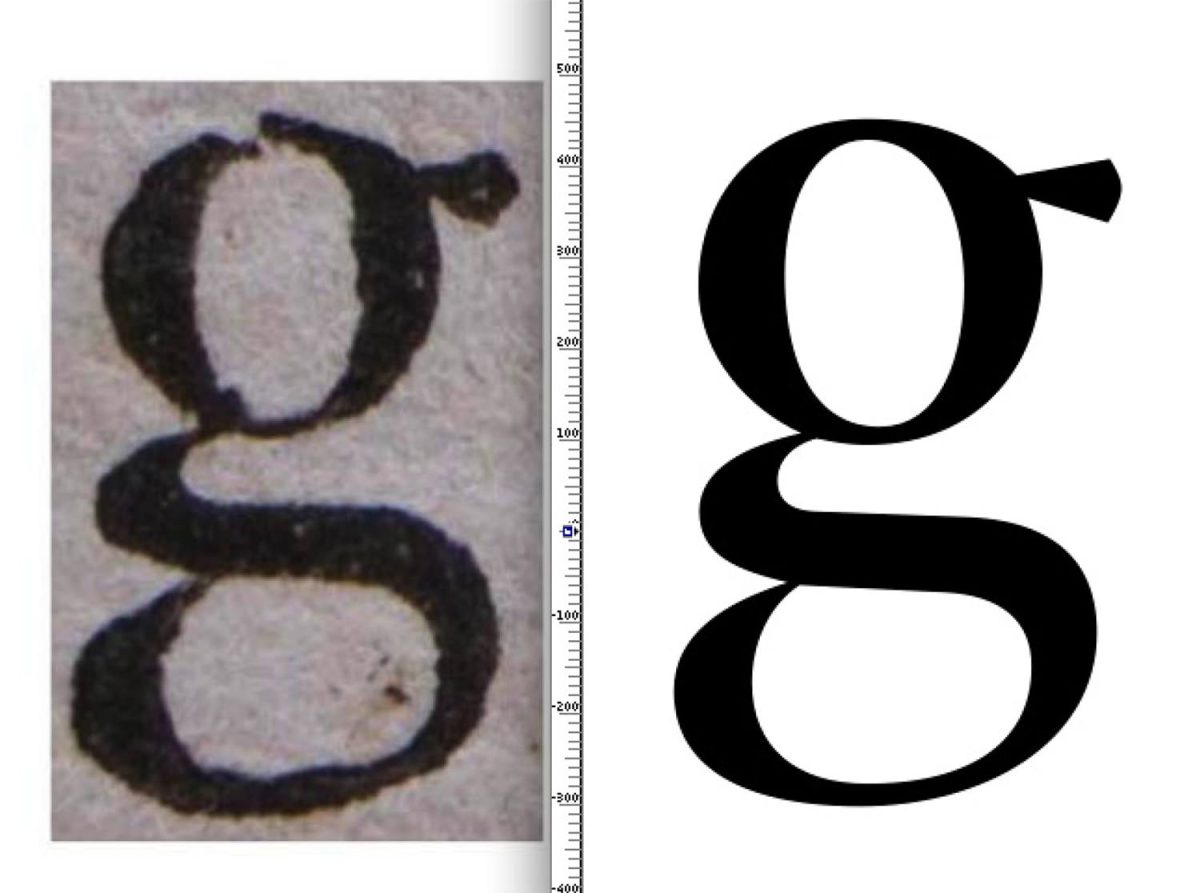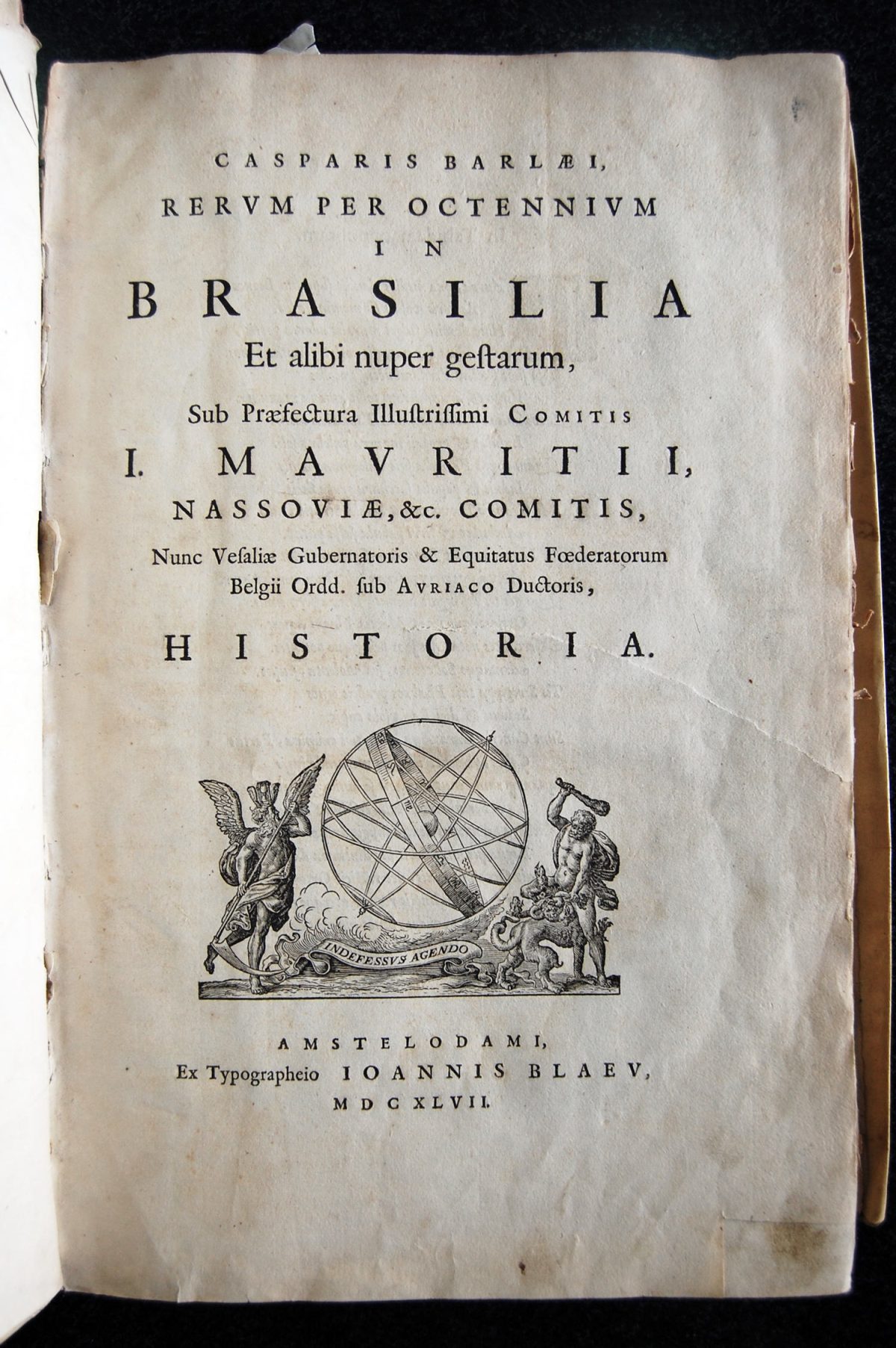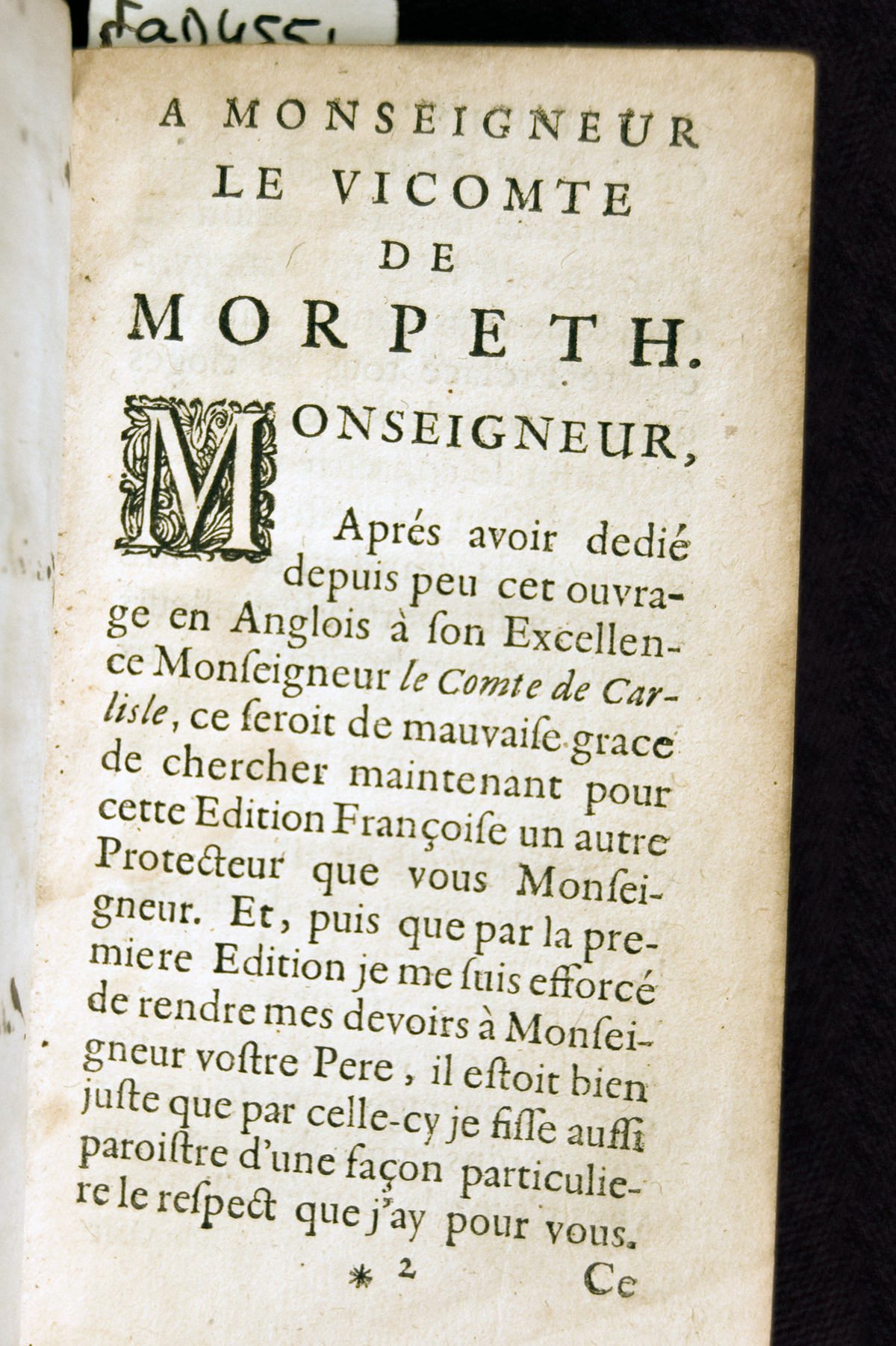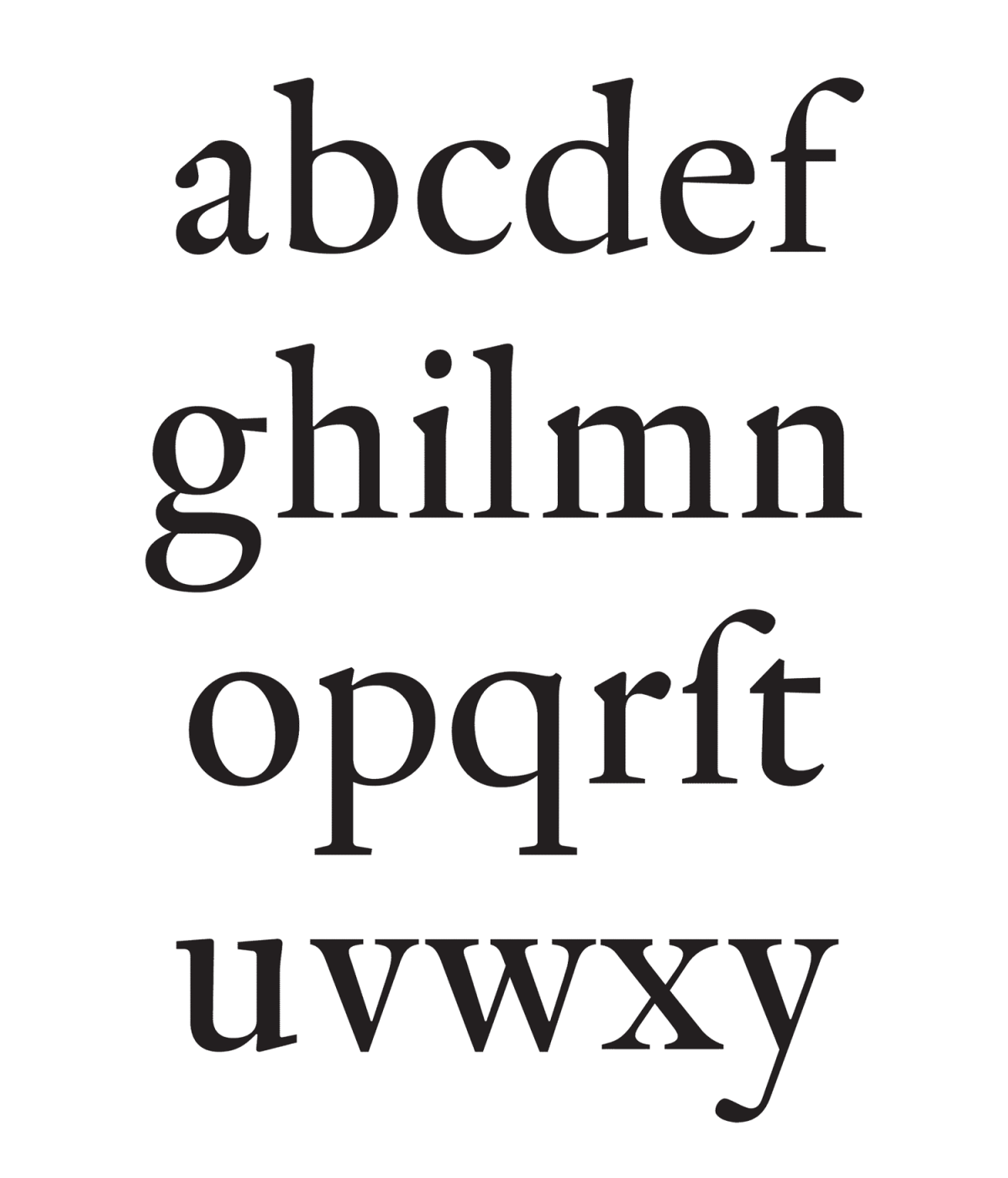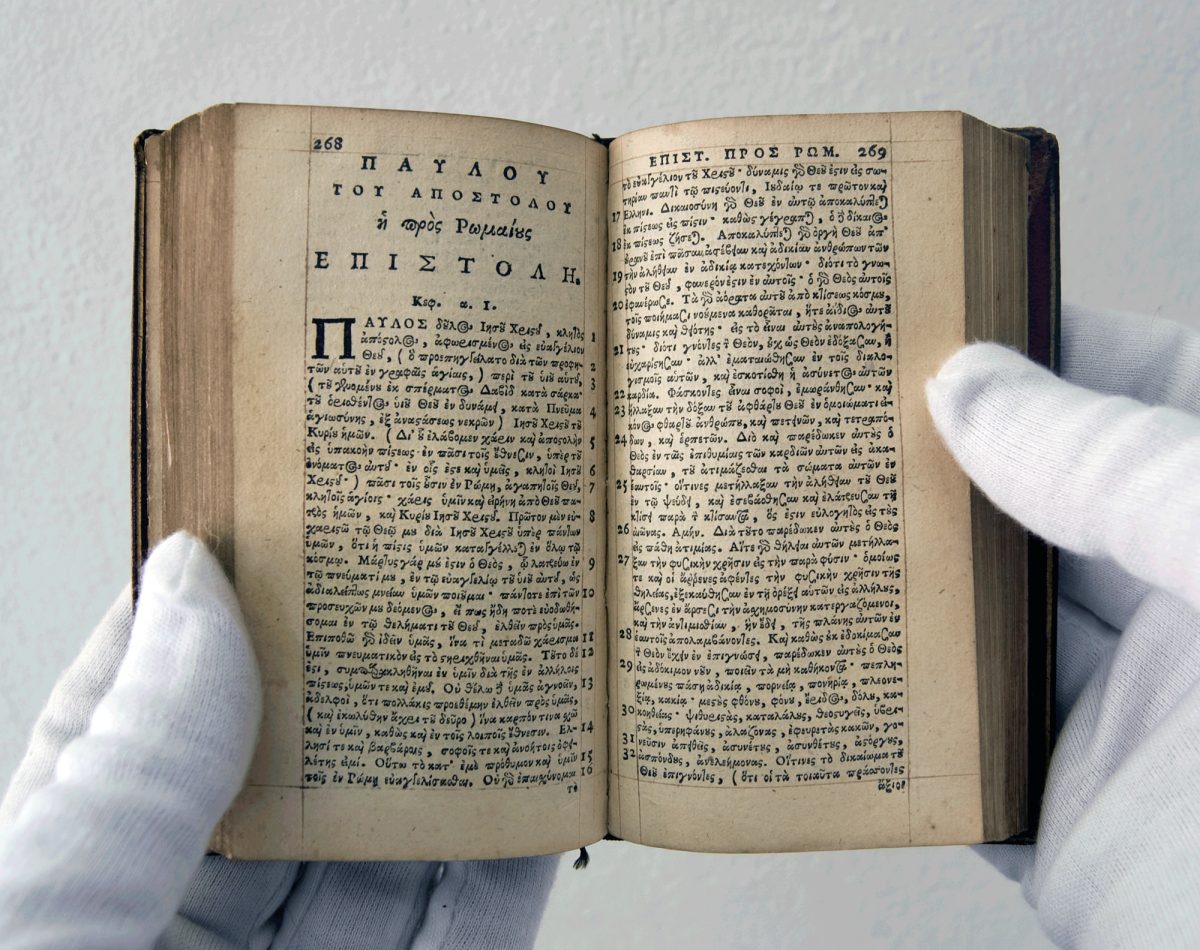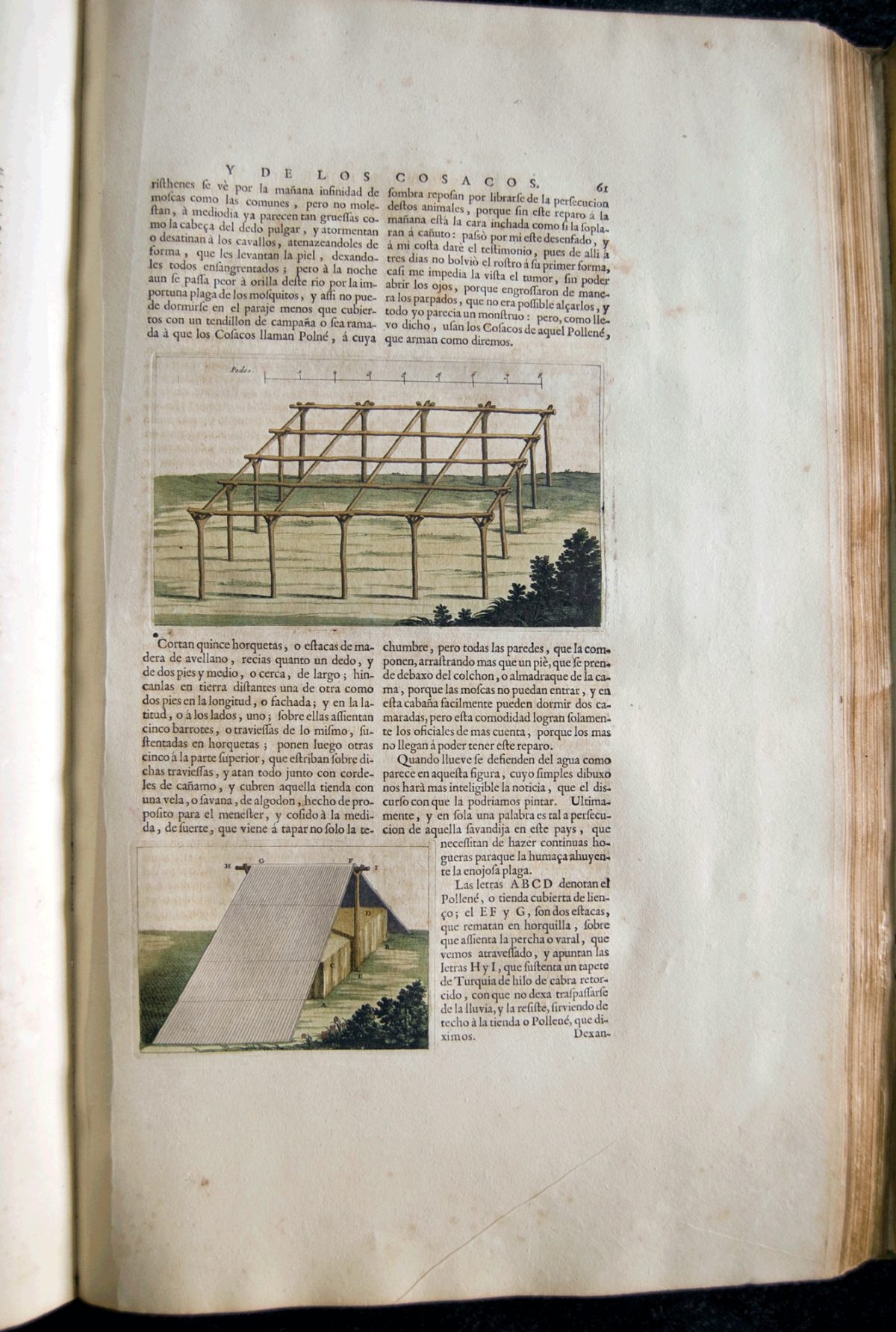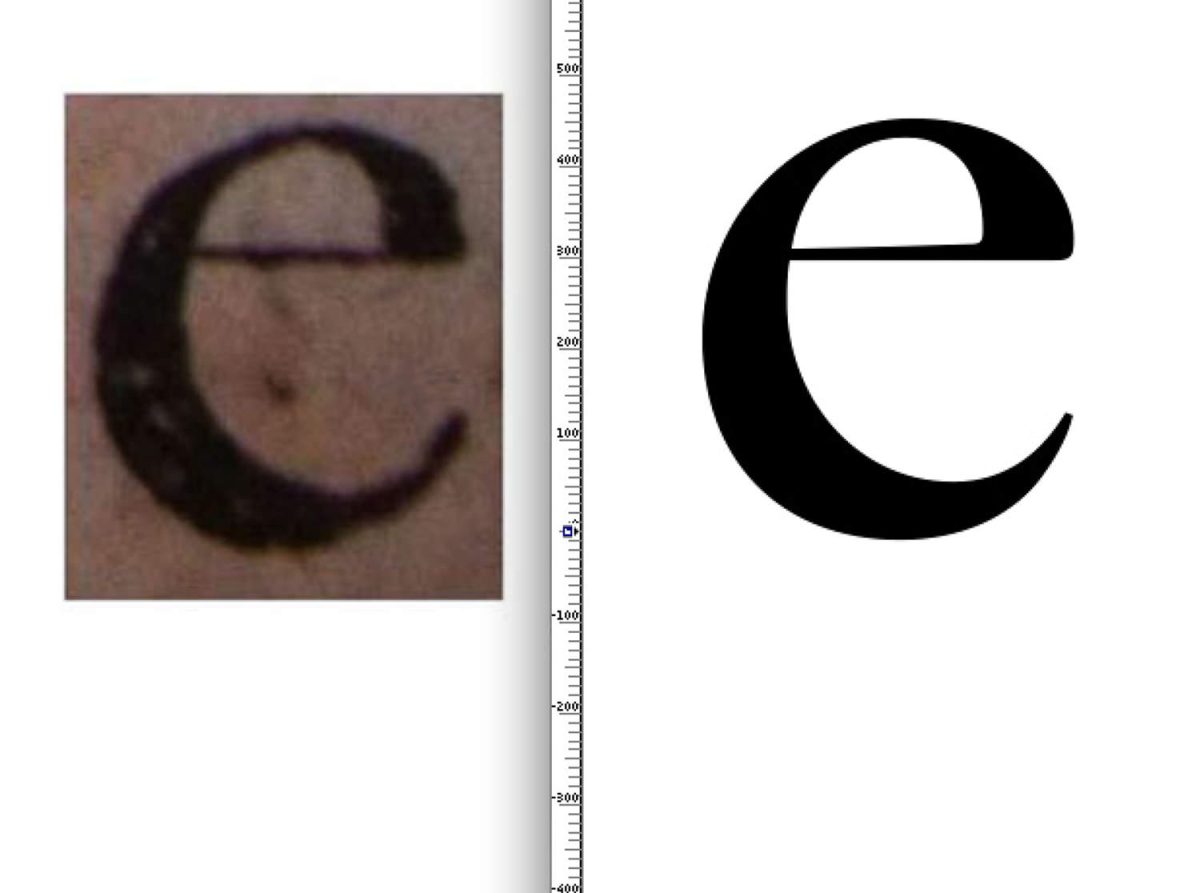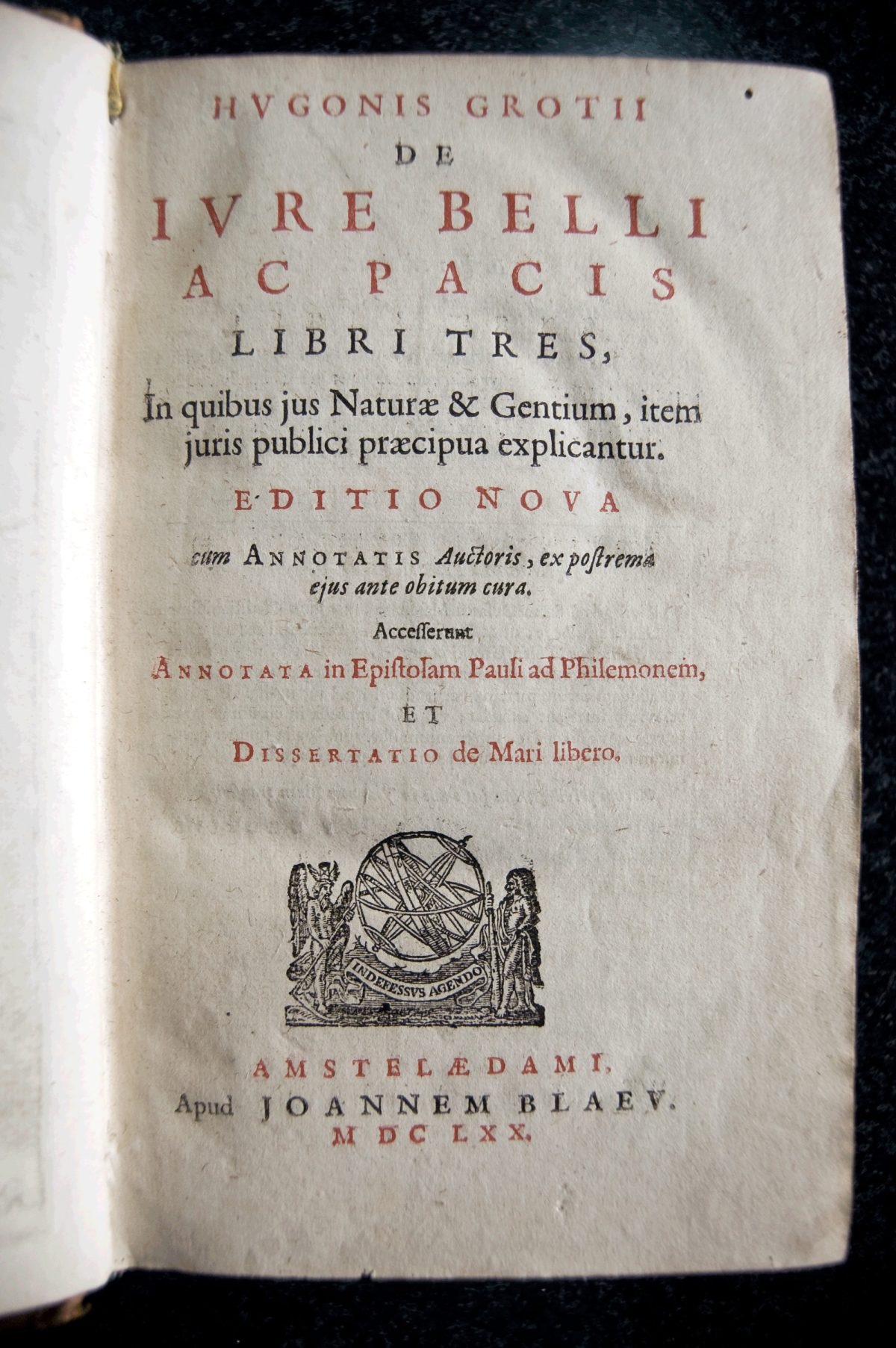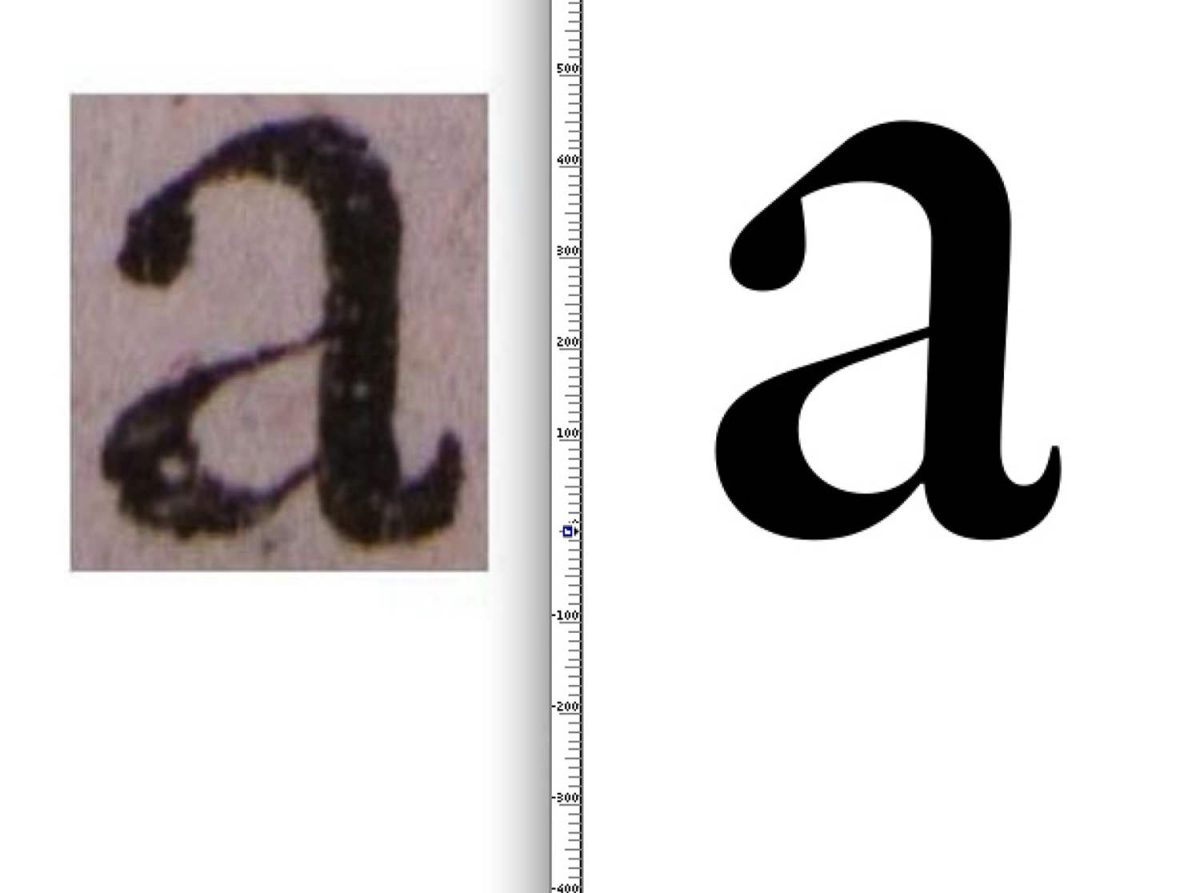
The Briot project. Part I
This detectivesque chronicle written by journalist Feike de Jong reopened the chests of the mysterious case of an early 17th century punch cutter from The Netherlands named Nicolaes Briot. Originally published by the Czech magazine TYPO, in their issue of Spring 2011, the editors have kindly allowed us to reproduce it here. Stay tuned, the second part of this story is under editing. (The Briot project is part of a wider revival program on historical sources carried out by PampaType since 2004. In the case of Briot, it has been so far the result of a collaboration between John Lane and Alejandro Lo Celso.)
Notes from the archive: Twists of fate and the fame of Nicolaes Briot
In the final decades of the 19th century, two men made a pact regarding the Amsterdam Municipal Archives. As they made their way through the archives, whenever Nicolaas De Roever would come across something of interest to his friend, Adriaan de Vries, he would pass him a note; likewise, when De Vries found something interesting for De Roever, he would return the favour. De Roever’s topics included applied arts, as well as printing and everything associated with book production. Thirty notes concern Christoffel van Dijck, the famed Dutch punch cutter who is generally considered the first world-class Dutch type designer. A handful notes mention another, earlier, punch cutter, the little-known Nicolaes Briot of the Sint Antoniebreestraat in Amsterdam.
Blaeu press: Nuevo Atlas de los Reynos de Escocia e Yrlanda, 1654. Top: close up. Here left: frontispiece. Biblioteca Palafoxiana, Puebla, Mexico. Photos: ALC.
Count of Carlisle, La relation de Trois Ambassades, dedication page, 1670. Bibliothèque de Toulouse, France. Photo: ALC.
Casparis Barlæi, Rerum per Octennium in Brasilia, frontispiece, 1647. Biblioteca Palafoxiana, Puebla, Mexico. Photo: ALC.
Since the events of history are themselves coincidences, how great is the coincidence of the survival of a record, especially in a topic as esoteric as typography? Somehow, chance has dictated that somebody like me, who is neither a designer nor a historian, is writing about the great, forgotten typeface designer Nicolaes Briot and several coincidences leading to the possible revival of his name. Like De Roever and De Vries, I find myself passing notes in a great archive beyond my understanding.
A designer’s request
This is a story that found me. An Argentine friend who designs letters asked me to translate an obscure Dutch text in the yearbook for an association interested in the history of Amsterdam. The yearbook was from 1907. Slightly larger than my hand, the pages were beige with age, the spine was beginning to unravel and the paper covers were tearing at the creases. It concerned topics such as monuments and building codes in the Golden Age. I turned to the page the designer had indicated I should start translating:
Nicolaas Briot & Jacques Carpentier, type founders and their relation to certain Amsterdam Printers (1615–1640) By J. W. Enschedé
Of the industries whose products are seen and yet generally unappreciated, that of type foundries must certainly be included; its products, typefaces, are hidden in the work of the printer. This was the case to such an extent in Amsterdam that Moes’s and Dr. Burger’s research about the 16th century did not find anything in this area; De amsterdamsche boekdrukkers en uitgevers in de zestiende eeuw (Printers and Publishers of Amsterdam in the 16th Century) notes a type founder [1] by name, Jan Theuniszoon, for the first time in 1600. Other mentions of his name are so scarce, the momentary curiosity sparked by the discovery cannot be satisfied further.
Thanks to notes taken by De Roever in the notary archives at that time, there is somewhat more knowledge regarding Briot and Carpentier, though far from enough for a somewhat precise idea of their activities. These notary excerpts form the basis of this contribution, which I wish to emphasize here, not in the least to be released from endless references to him, but especially to say on my part how much the local history of Amsterdam owes to the indefatigable efforts of Amsterdam’s previous archivist. Quite a few book titles are cited: I should mention here, that perhaps none of these titles was copied from the book itself. Bibliographies and our own working apparatus have been consulted assiduously, so not only is the spelling of those titles irregular, but no responsibility can be assumed for diplomatic accuracy.
The text by this mysterious citizen of Amsterdam, with its antiquated style, enumerations of lists of books, addresses of ancient houses which did not have numbers but names like the bookseller who lived “at the Golden A.B.C.”, conjured in my mind the images of slow ships with billowing sails leaving the bustling port of Amsterdam through the great bay of the Zuider Zee, Jews and Armenians selling exotic spices and printing religious works, steep wooden staircases in old red brick houses, painted tiles encircling fireplaces.
Blaeu press: Hugo Grotius, De Iure Belli ac Pacis, 1670. Here frontispiece, and titling page below. Biblioteca Palafoxiana, Puebla, Mexico. Photos: ALC.
The Mexican connection
“It was the only document I could find on Briot anywhere,” explained my Argentinean friend, Alejandro Lo Celso, over a cup of coffee at a street-side café in Mexico City’s fashionable Condesa neighborhood. “And so I ordered it, even though it was in Dutch.” This Briot had been a punchcutter, and Lo Celso had become aware of his existence through the book Early Type Specimens in the Plantin-Moretus Museum by John A. Lane.
I would learn that the materials used in printing could pass through the centuries from one company to another, since technology in those times did not change as swiftly as it tends to now, and a quality product could remain in use for ages if tended to with care. In the course of this process, the names of the people who had cut the original punches could easily be forgotten. Later I would also learn that a few of Briot’s punches still existed in the museum bearing the name of the Enschedés, the illustrious family of printers which included the author of the article I had translated, Jan Willem Enschedé.
Feike de Jong is a philosopher, researcher, artist, cultural manager and journalist with an urban focus. He lives in Mexico City. He won the Walter Reuter German Journalism Award in 2010. In 2009 he undertook a 51-day journalistic/urban expedition around the 800 km perimeter of the Mexico City conurbation on foot. Since then he has dedicated himself to the research and dissemination of information about the shores of the megalopolis of the Valley of Mexico in collaboration with organizations such as the Rufino Tamayo Museum, UNAM, UAM Azcapotzalco, York University in Canada and Ogino Knauss in Italy. He has written for national and international media such as Forbes Mexico, the Guardian and the Atlantic. His photos have appeared in media such as Arquine and The Guardian. He exhibited as an artist at the Paraninfo of the University of the Basque Country in Bilbao and is managing a collective art project around the border of the island of Tenochtitlán. He has played saxophone and flute with the group La Redada in festivals such as Trópico in Acapulco, the Worldwide Festival in Séte, France and Braille Satellite in Vilnius. He holds a master’s degree in philosophy from the University of Nijmegen in Holland, and he is a member of the Círculo de Tipógrafos.